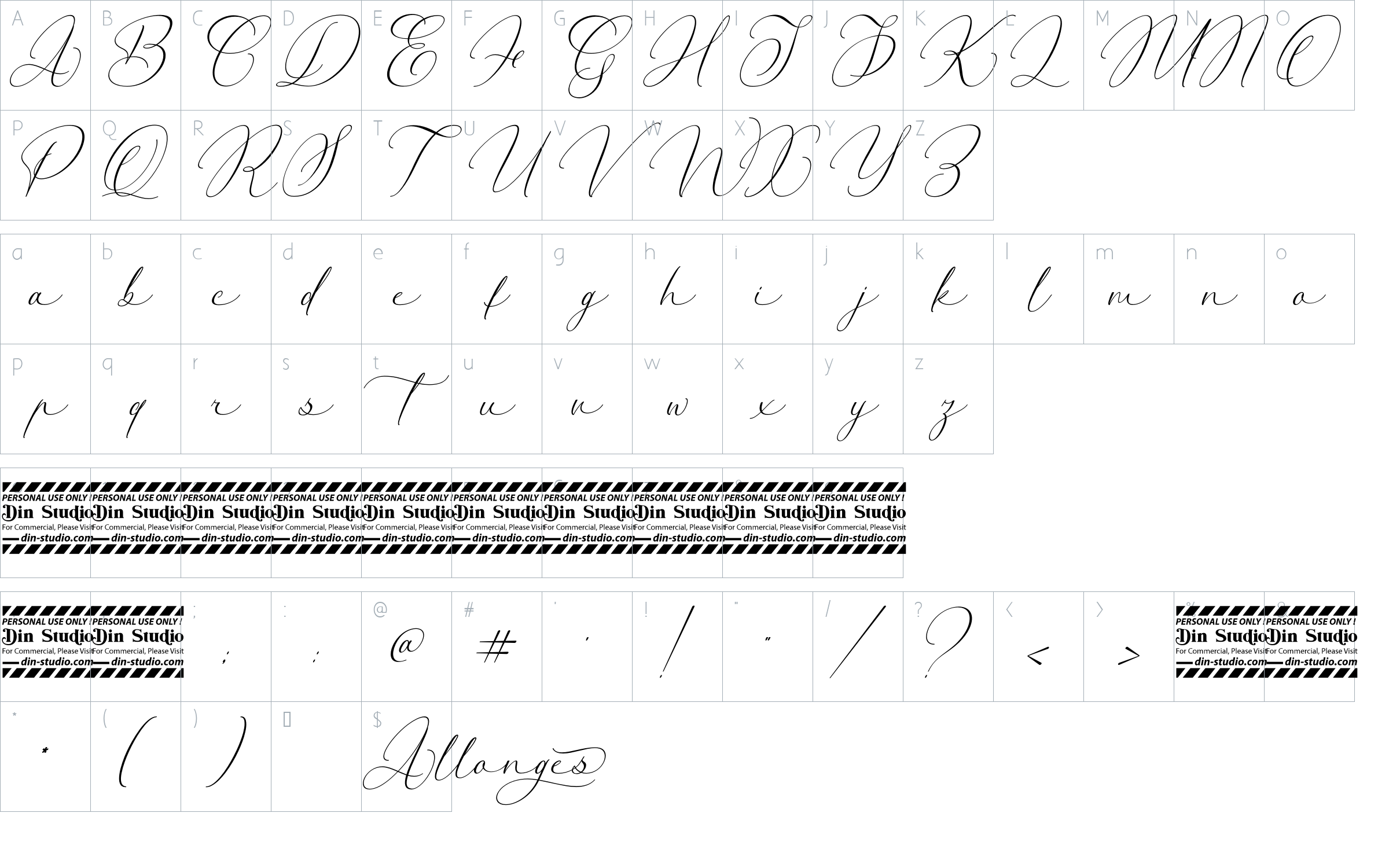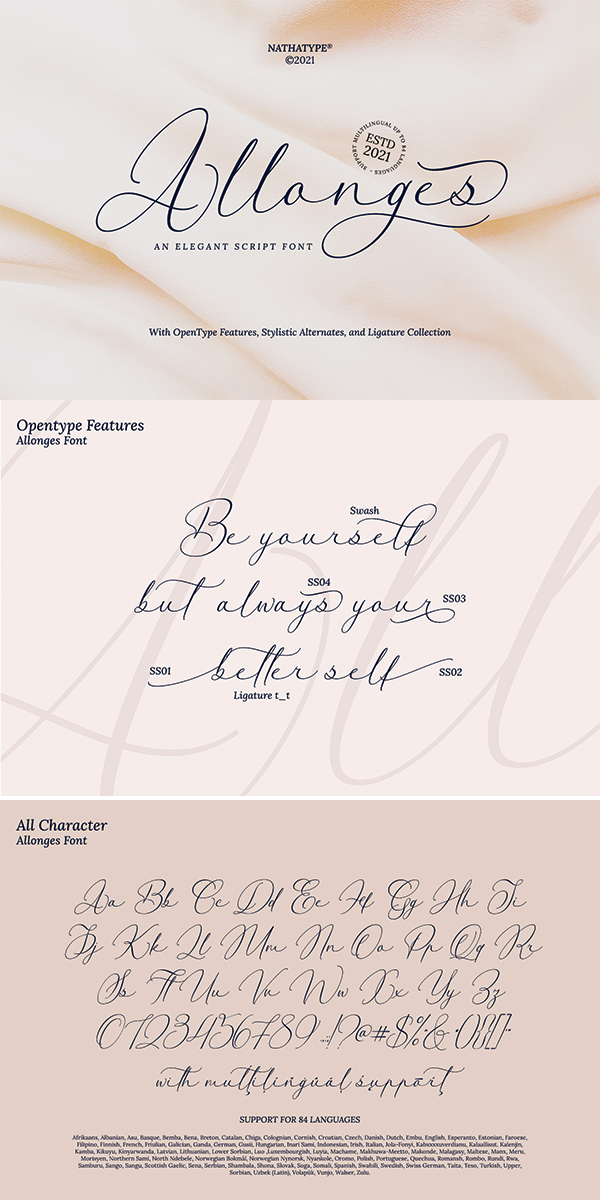
Allonges Font
About Allonges
Allonges -A Script Font
Allonges script is suitable for today’s growing market design, this font has a model trendy, natural and soft, with this font you can take advantage of an occasion in every moment. Allonges is a new modern script font with an irregular base line. Style trendy and feminine. Allonges looks beautiful for branding, logos, wedding goods, greeting cards, fashion, lookbook, marketing promotions.
-Swahes